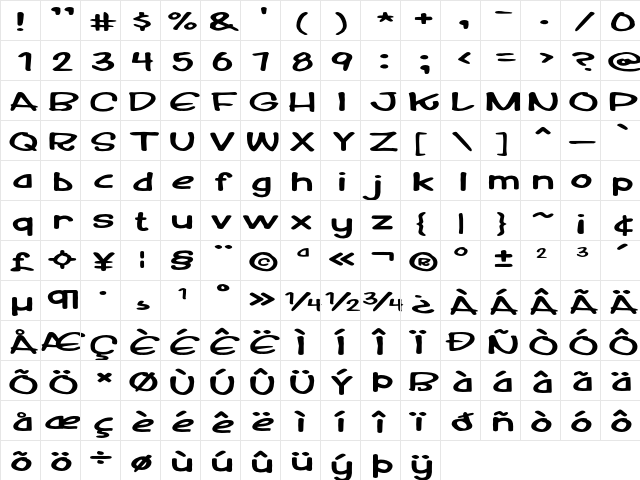
Kinderscratch Extra-expanded Regular
Style: Extra-expanded Regular
Kinderscratch Family
Kinderscratch Extra-expanded Regular
Complete Kinderscratch Extra-expanded Regular glyph index. Displaying only characters natively supported by Kinderscratch Extra-expanded Regular font.
Design Context for Kinderscratch
Kinderscratch is a composed and adaptable typeface that performs quietly and consistently across a wide range of design contexts.
Pro Tip: Use Kinderscratch in both headline and body roles to test its range before committing to a single application.